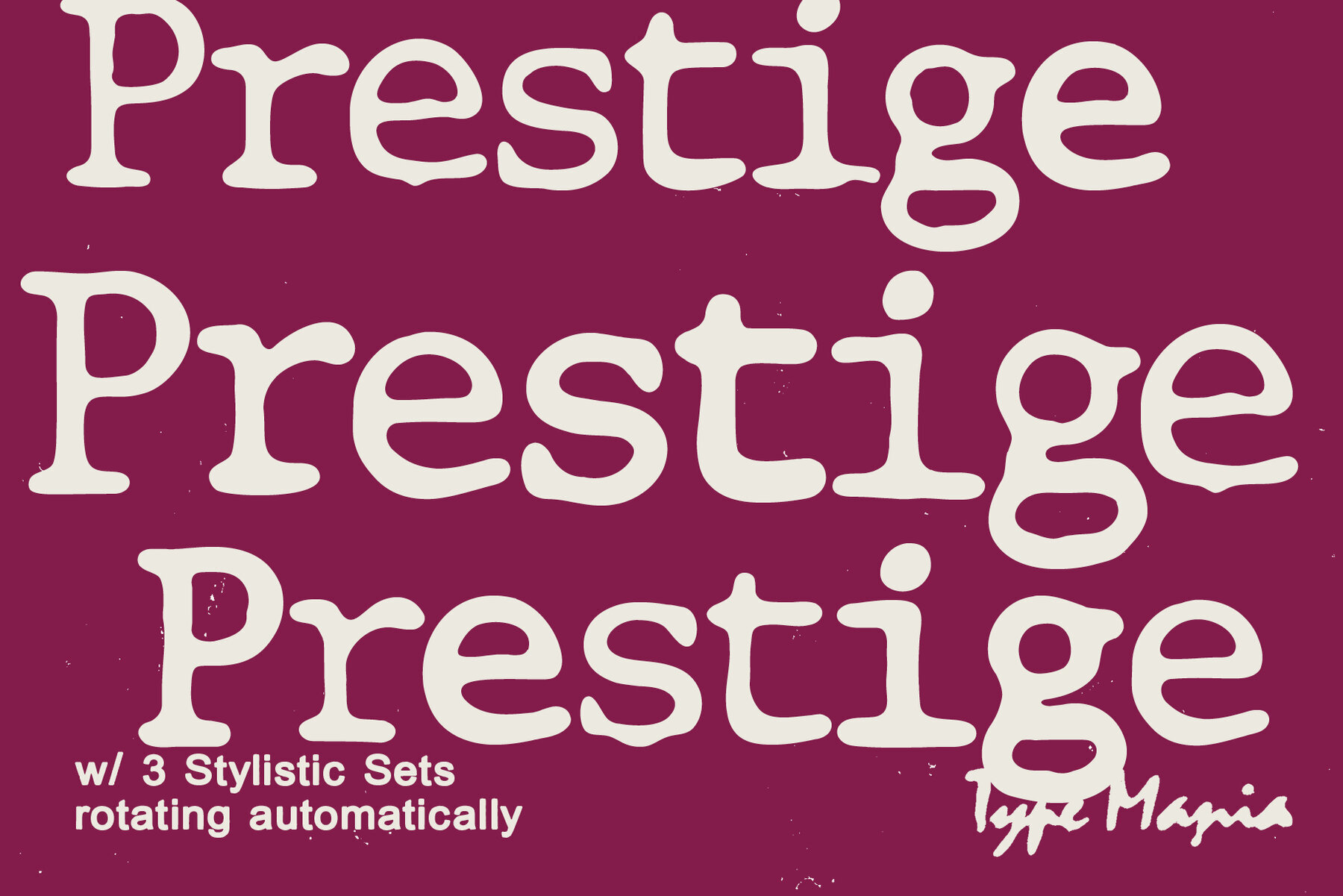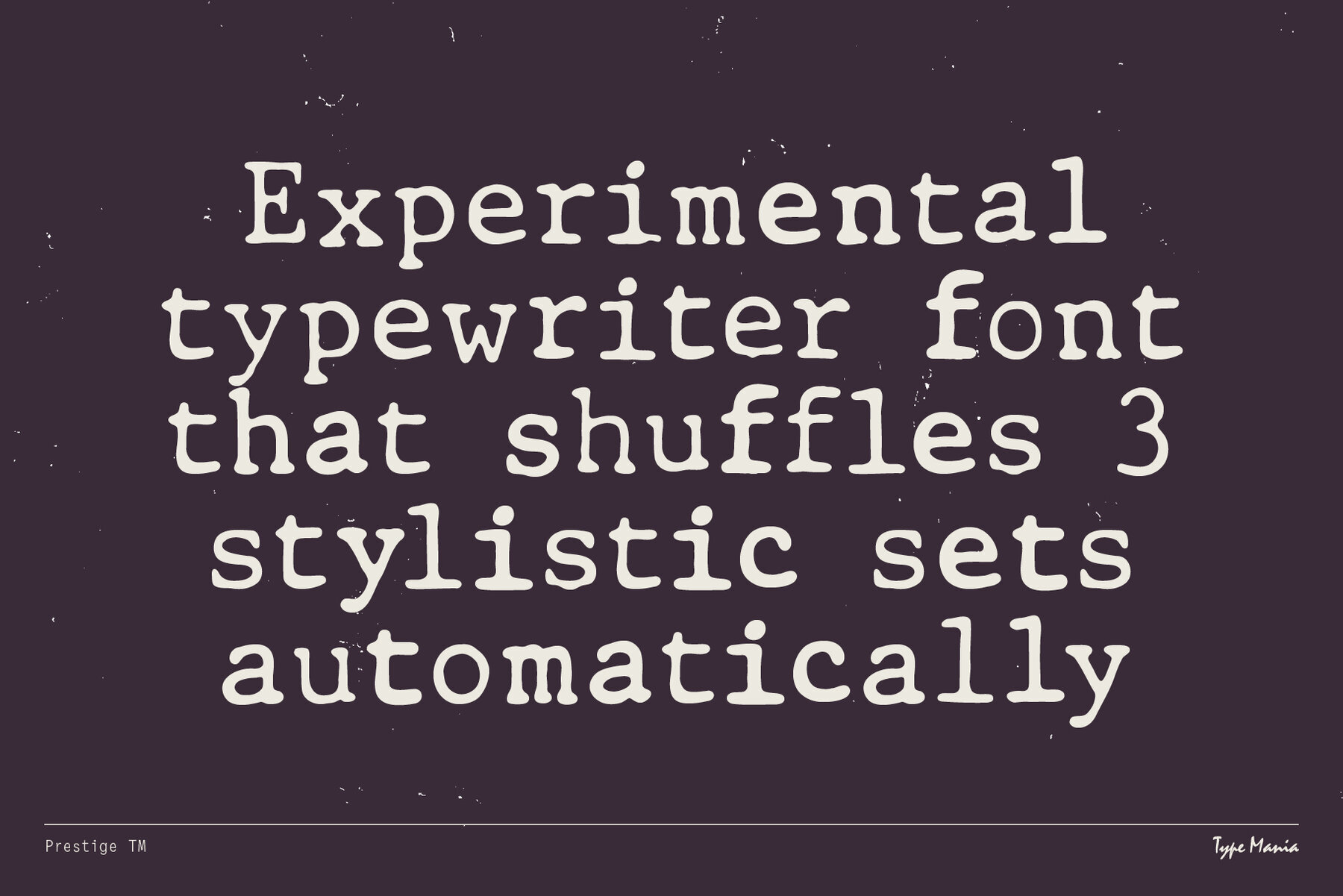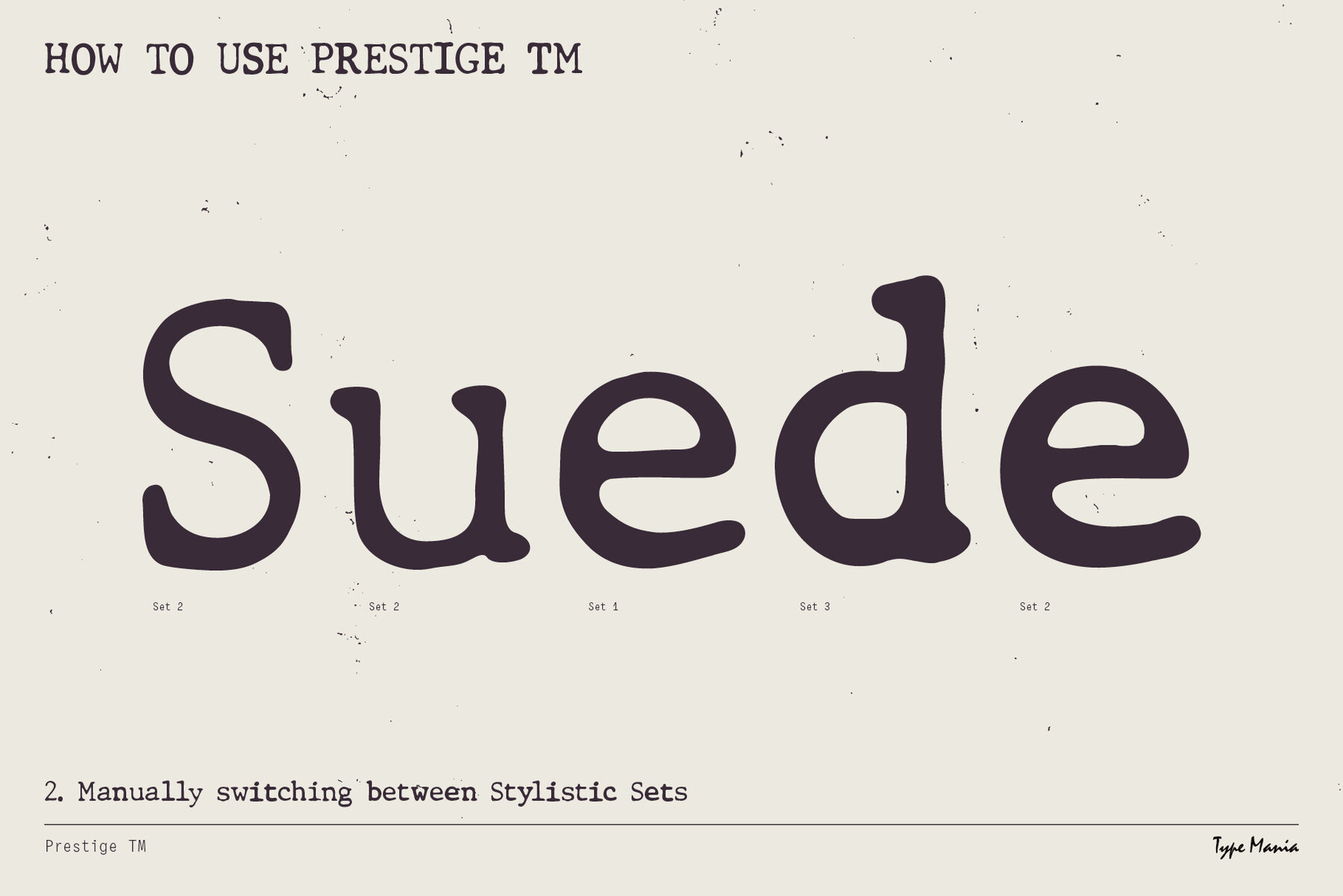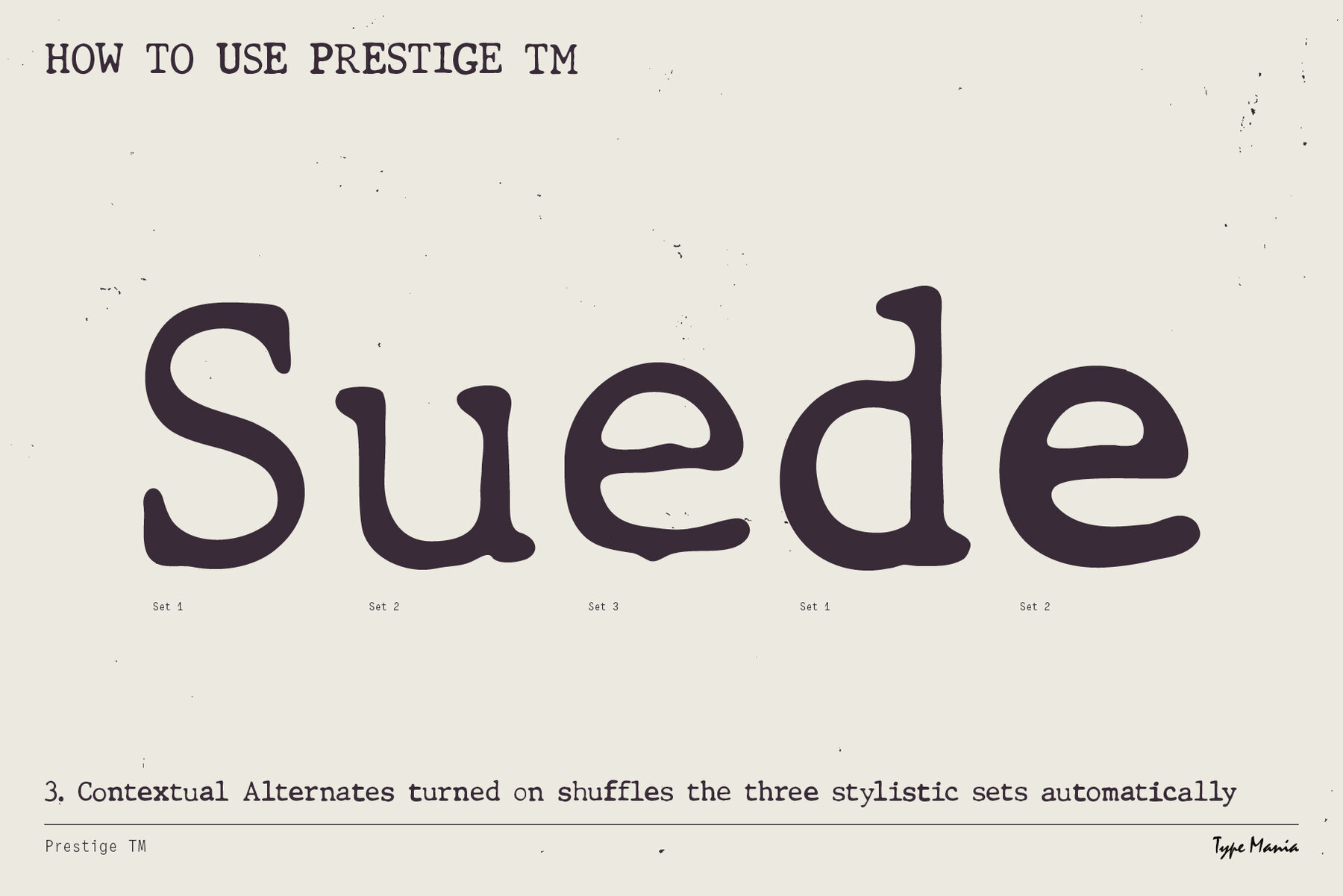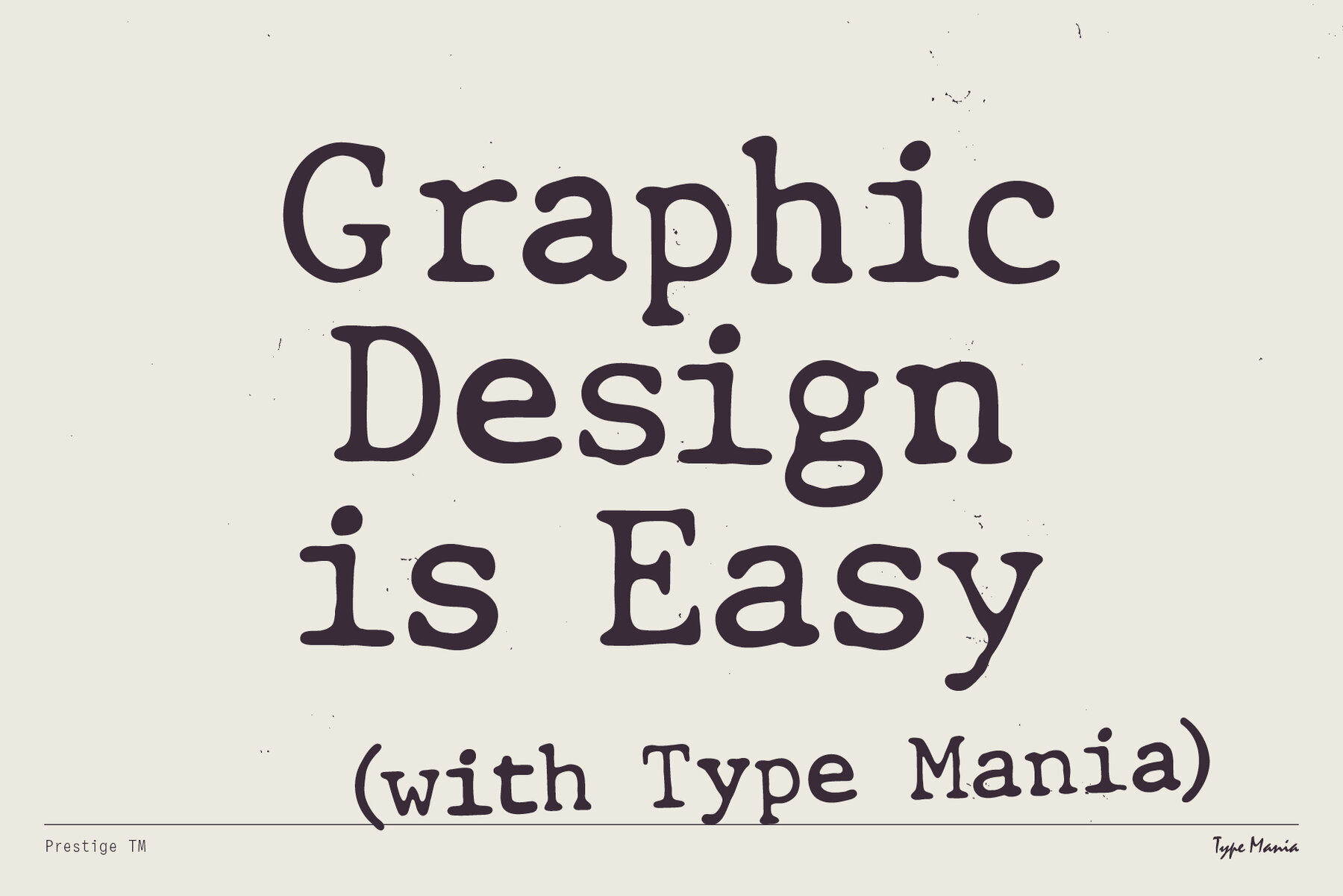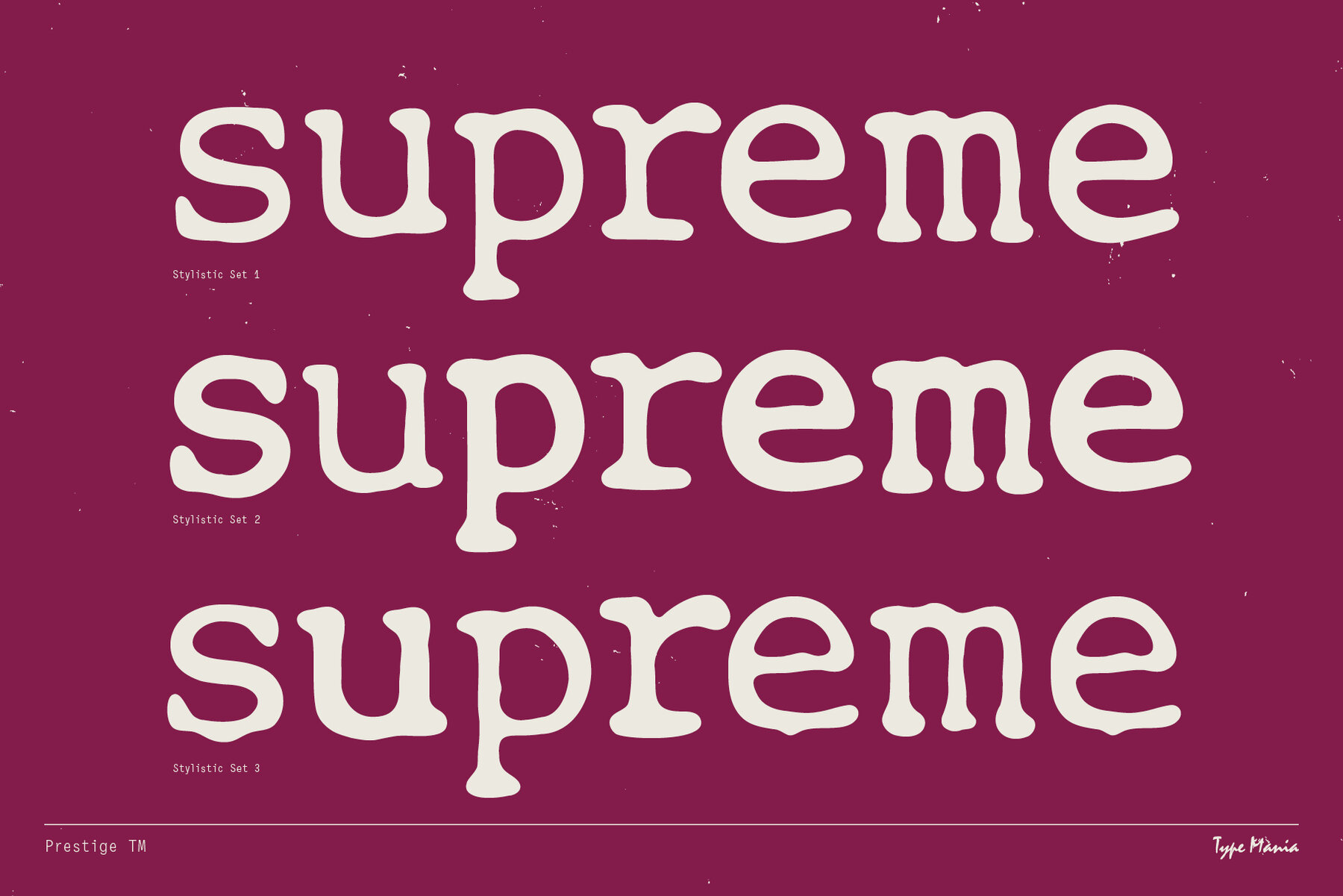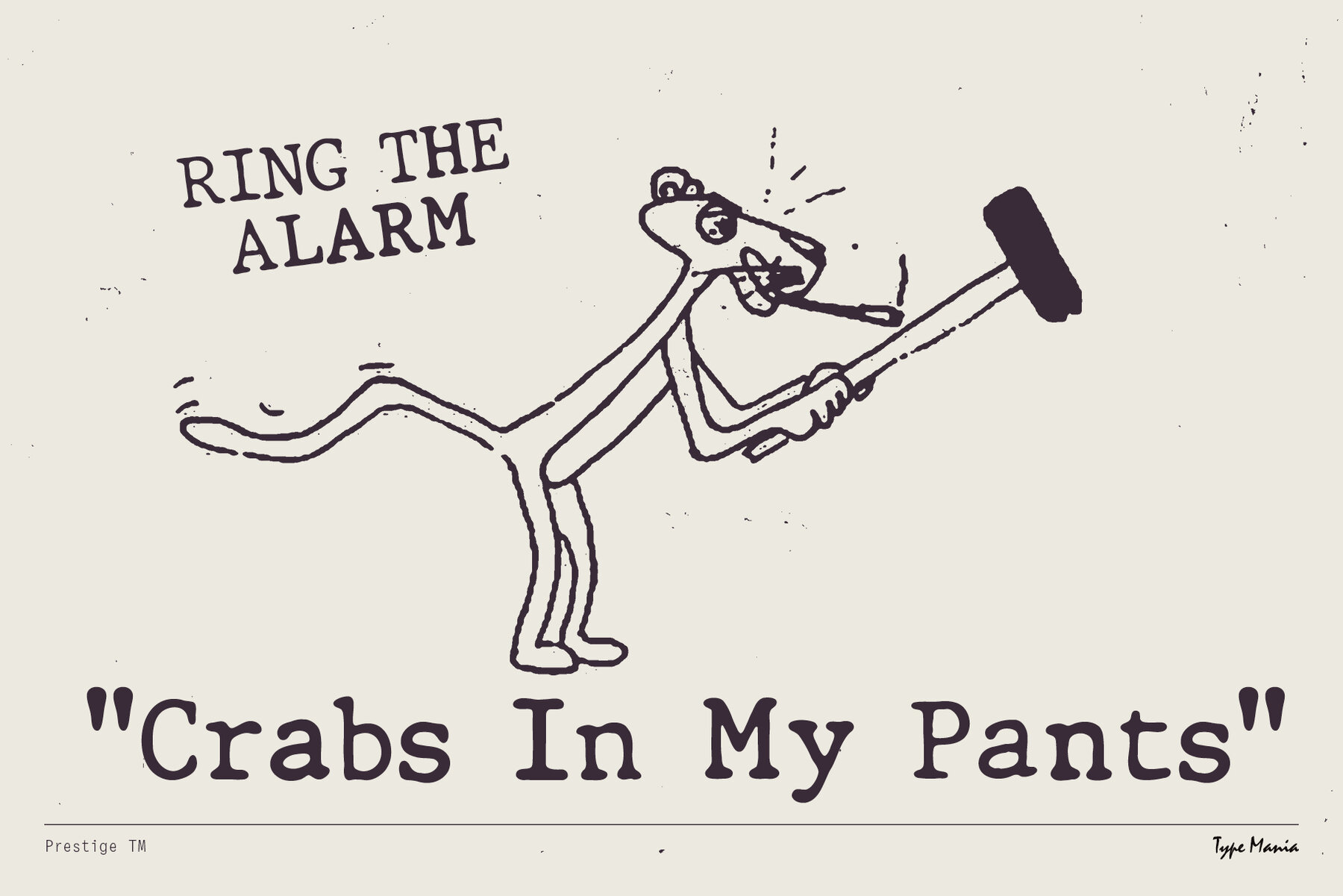
Prestige TM Font
Prestige TM Regular
Prestige is a sans serif typeface distinctly influenced by mid-century typeball machines. It presents distressed vintage-inspired shapes while introducing a modern twist. The font’s three stylistic sets rotate automatically, creating an irregular but cohesive aesthetic akin to ink striking paper. Graphic Design is Easy with Type Mania&174;Prestige Typeface: A Vintage Flair with Modern Dynamics